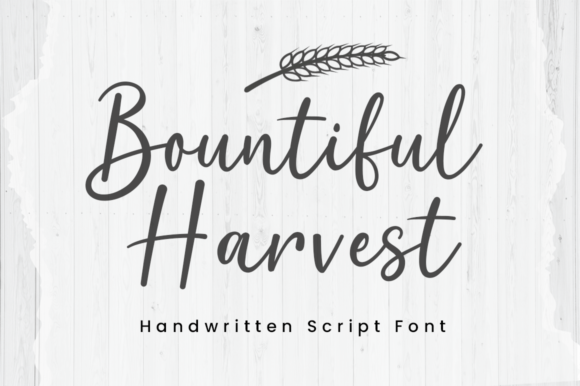
The Bountiful Harvest Font: A Designer’s New Best Friend
I’ll never forget the time I was working on a wedding invitation project, and my client asked for a font that was “rustic, yet elegant.” I scoured the internet, tried out dozens of fonts, but nothing seemed quite right. That was until I stumbled upon the Bountiful Harvest font. With its beautiful, handwritten curves and vector additions for decorations, it was the perfect fit. In this article, I’ll share my experience with this amazing font, and show you how to make the most of its features.
• ✨ Beautiful, handwritten curves that add a personal touch to any design
• ✅ Vector additions for decorations, logos, and more
• ✅ Works flawlessly in various designs, including vinyl, weddings, website logos, Instagram posts, and products
• ✨ Easy to use and pairs well with a variety of other fonts
While I absolutely love the Bountiful Harvest font, there are a few things to keep in mind:
• ⚠️ Some of the vector additions can be a bit finicky to use, especially for beginners
• 🤔 The font can be a bit overused, so be sure to balance it with other design elements
The Bountiful Harvest font was inspired by the beauty of nature and the joy of harvesting fresh produce. The designer wanted to create a font that captured the feeling of abundance and gratitude, while also being elegant and sophisticated. With its beautiful, handwritten curves and vector additions for decorations, the Bountiful Harvest font is the perfect choice for any design project that needs a touch of rustic elegance.
Q: What is the Bountiful Harvest font?
A: The Bountiful Harvest font is a handwritten font with vector additions for decorations, logos, and more.
Q: What can I use the Bountiful Harvest font for?
A: You can use the Bountiful Harvest font for a variety of design projects, including vinyl, weddings, website logos, Instagram posts, products, and more.
Q: Is the Bountiful Harvest font easy to use?
A: Yes, the Bountiful Harvest font is easy to use and pairs well with a variety of other fonts.